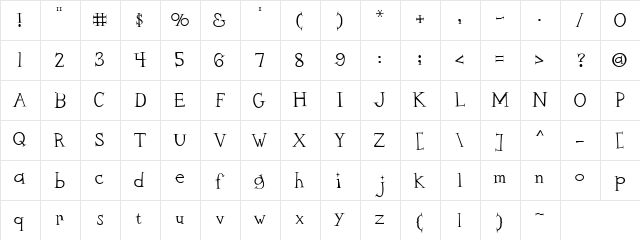
CK Nitelite Regular Font Preview
CK Nitelite Regular
Design Context for CK Nitelite Typeface
CK Nitelite takes a measured approach to typography — its balanced proportions and neutral character make it a reliable workhorse for both digital and print work.